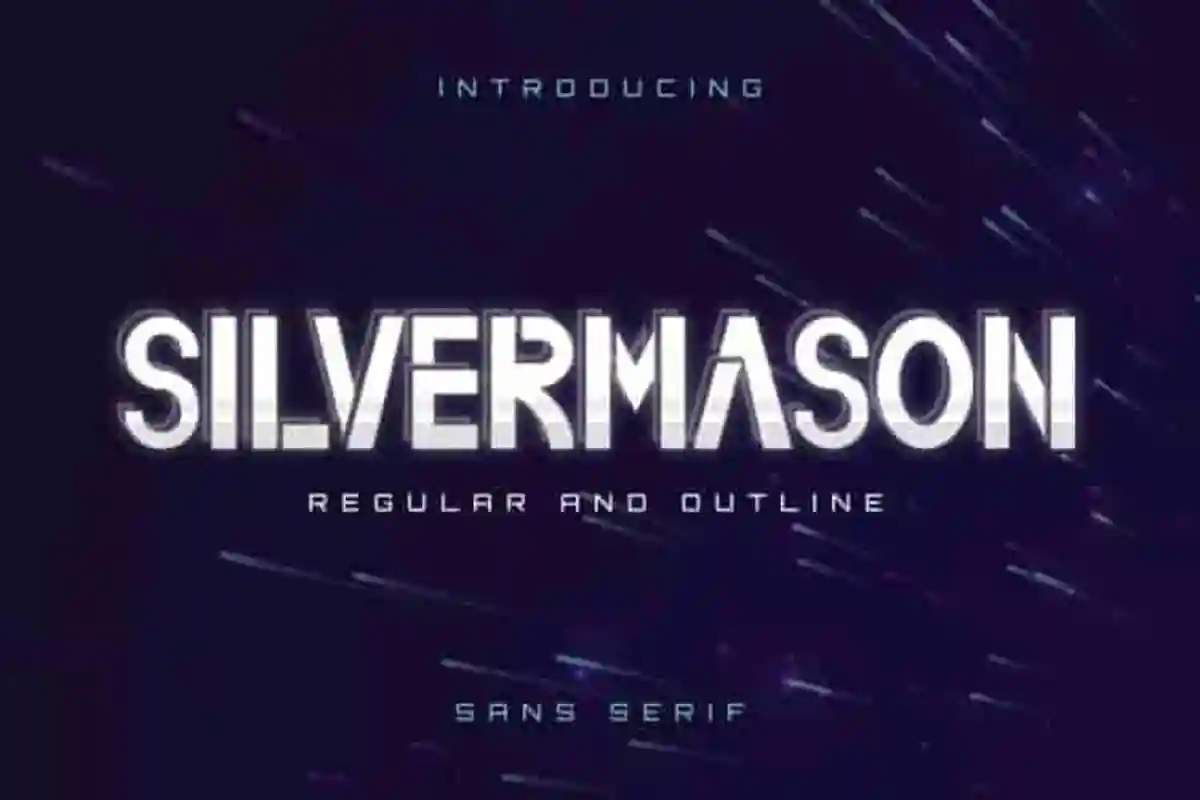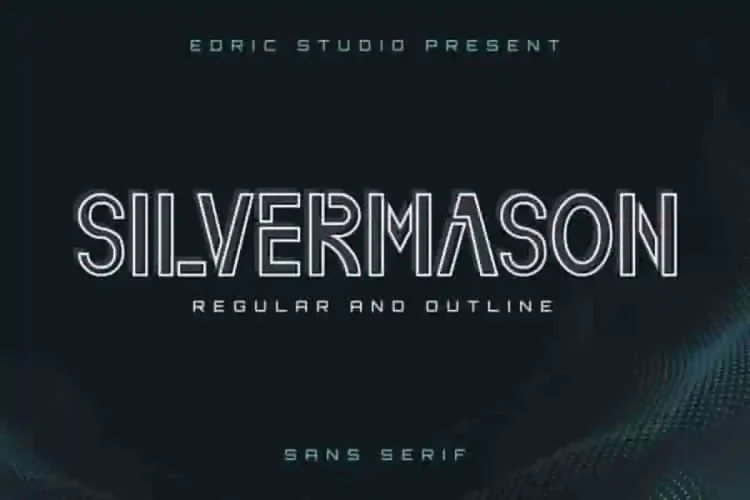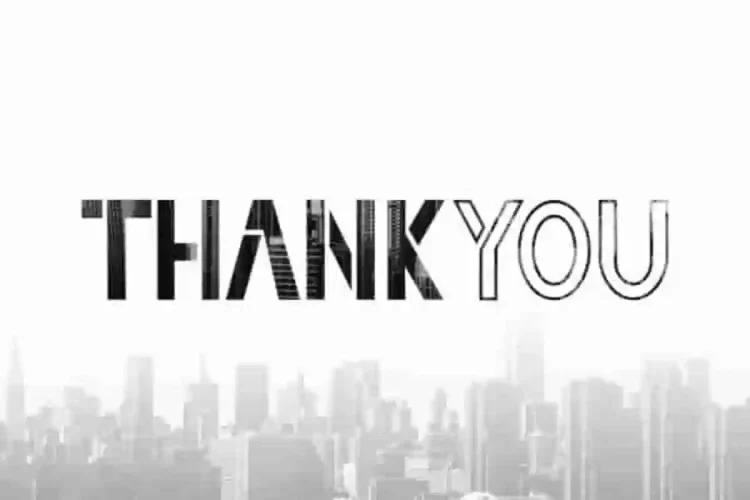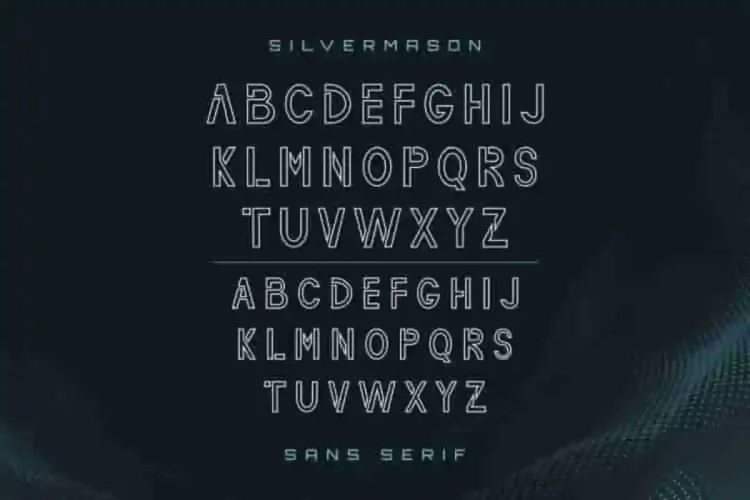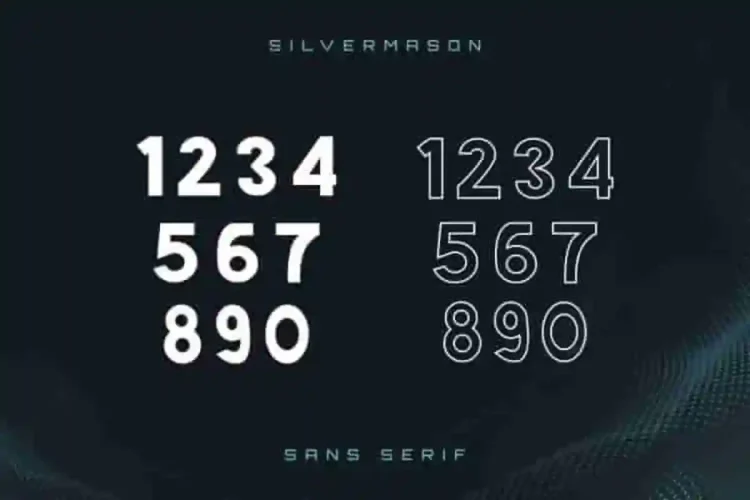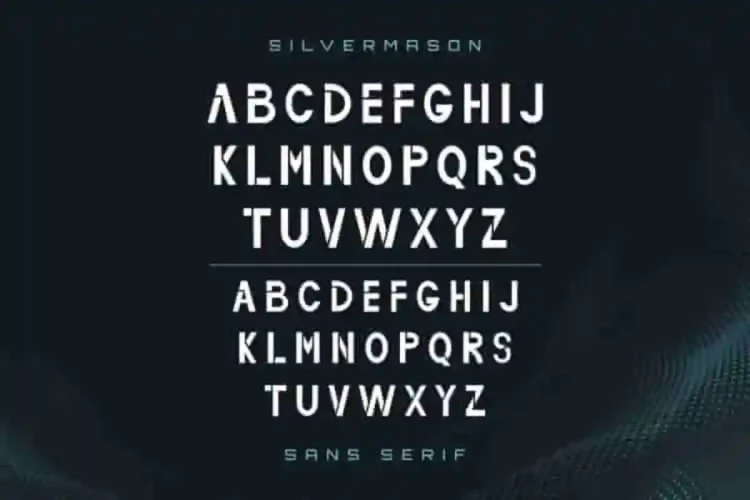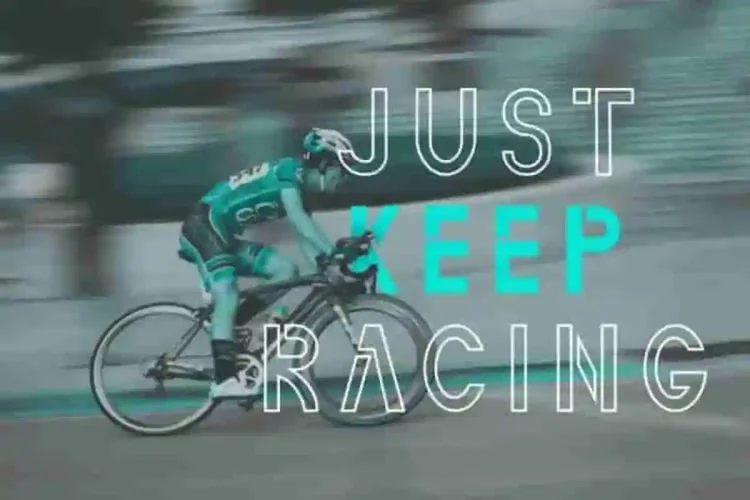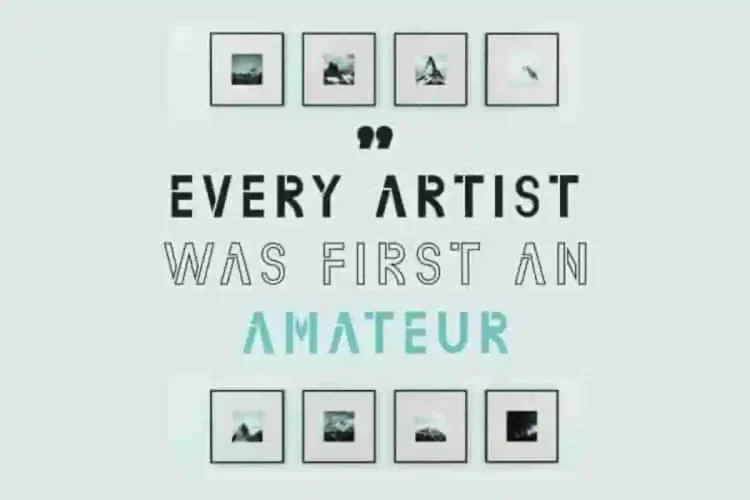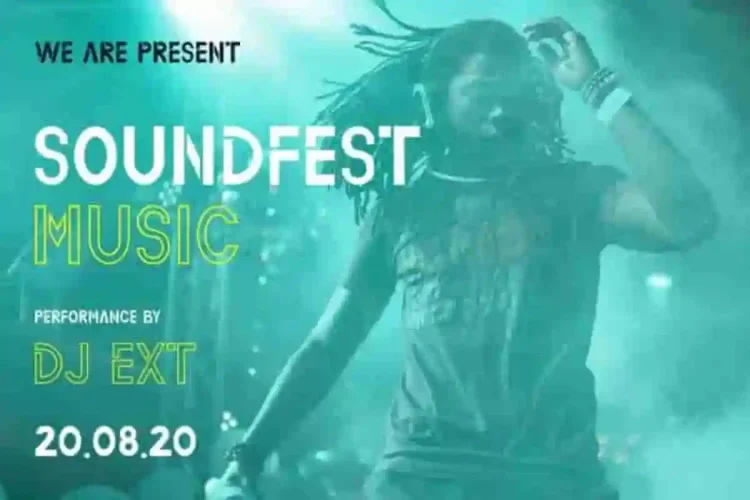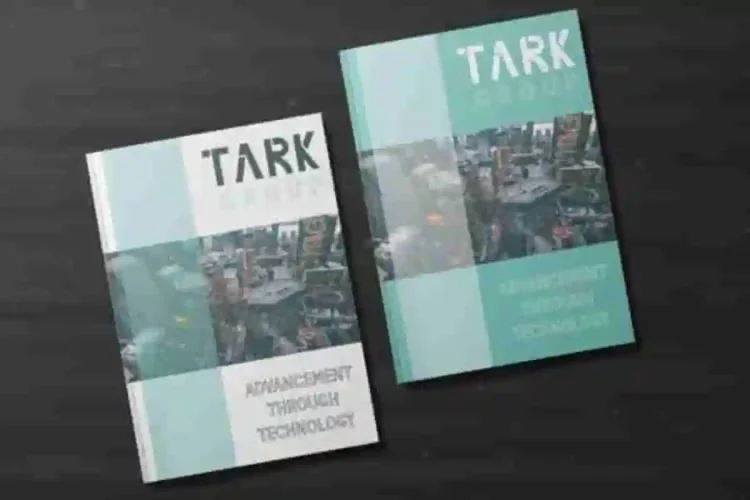
Silvermason Sans Serif Font
Introducing our newest font from our lovely artist : Silvermason Font
This is a sans serif font family, handcrafted from our Studio here in, Indonesia. The artists/designers of this beautiful typeface is Lukman and Suci.
Silvermason Font is an unique sans serif display font with 2 styles : Regular and Outline. This font has a stunning characters set, perfectly managed with well spaced and kerning.
Silvermason Font will be great for any projects including : branding, logo, stationery, business card, signage, flyer, brochure etc. Almost all industries will be match for this typeface: architect, technology, health company, insurance, lawyer, startup, gaming, events, real estate, architect, law firm, florist, gardening, makeup artist, travel, hotel, musician etc.